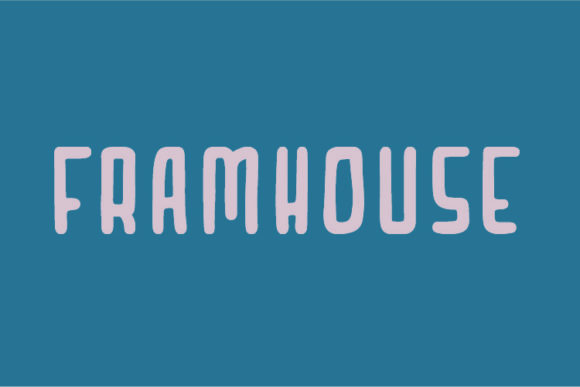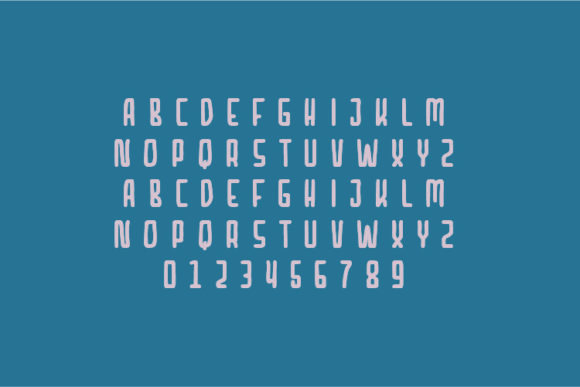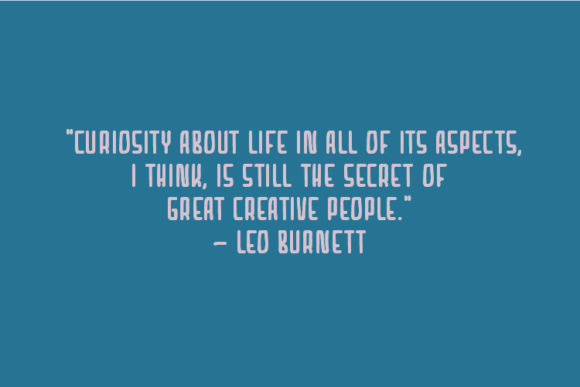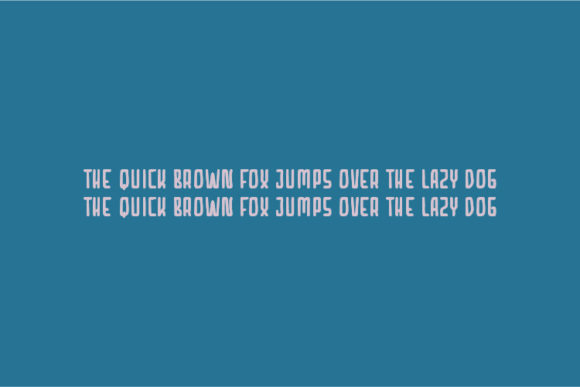
About Framhouse Font
Framhouse is a cute and natural handwritten font. Whether you use it for cartoon related designs, children games or just any creation that requires a lovely touch, this font will be an amazing choice.